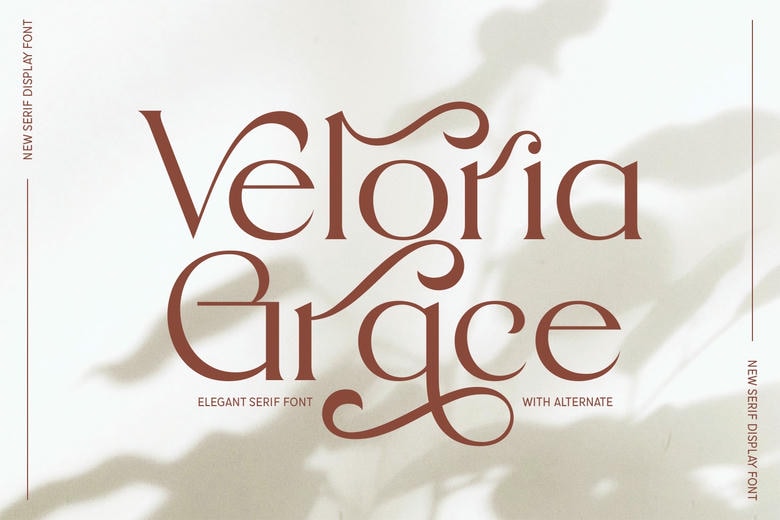
Veloria Grace Font
Veloria Grace is a new and classy serif display typeface. The off-white background is clean with soft, natural leaf shadows, which form a sophisticated and graceful boho-chic look.
Veloria Grace Serif Font